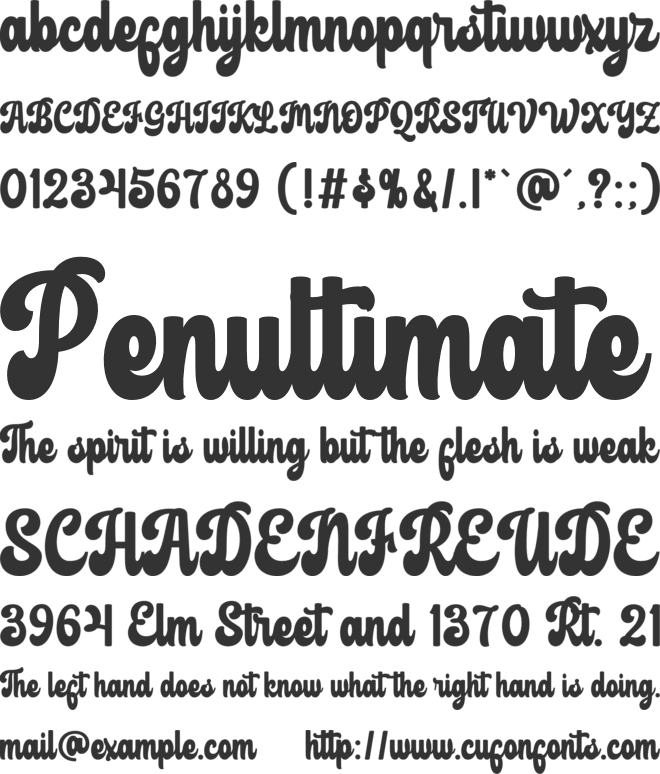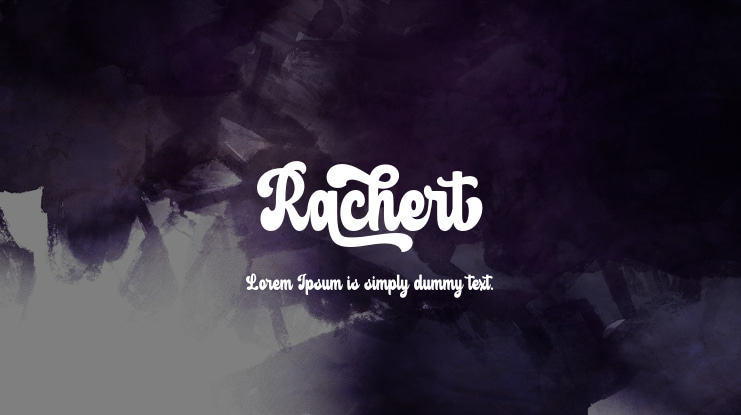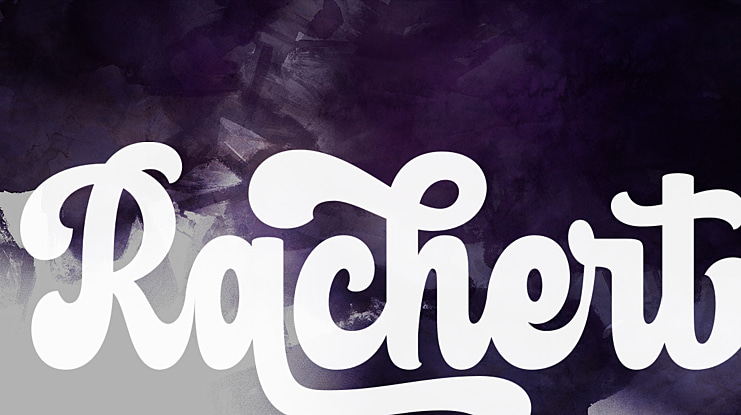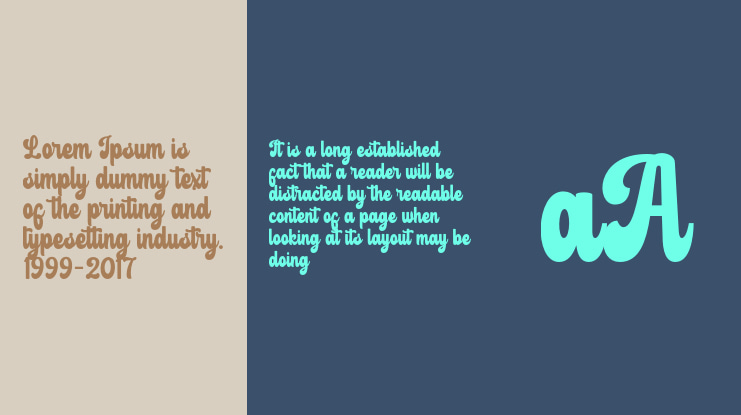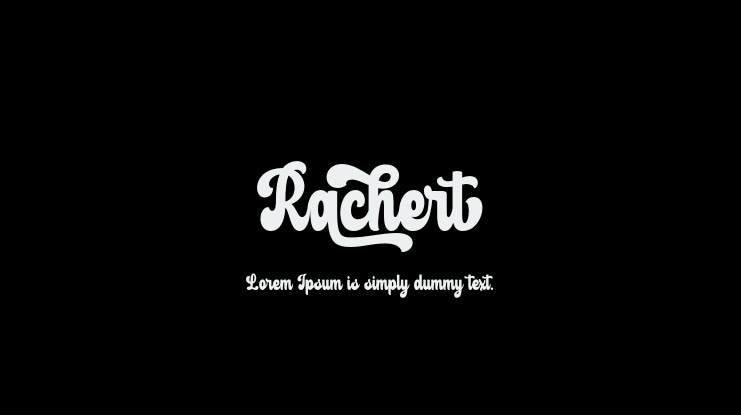
Rachert Font
Rachert is a retro bold font that will bring you back to the 70s. Fall in love with its unique character and use it to create gorgeous wedding invitations, beautiful stationery art, eye-catching social media posts, and much more!